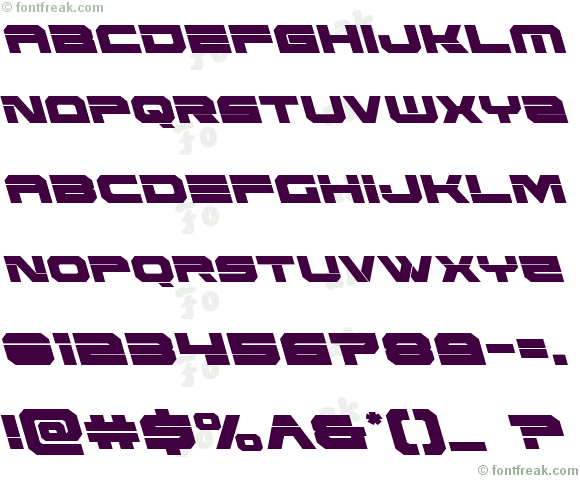
Eridanus Condensed Leftalic
About Eridanus Condensed Leftalic
Eridanus Condensed Leftalic by Daniel Zadorozny is a striking display font that embodies a unique blend of modernity and futuristic flair. This condensed typeface features a semi-bold stroke weight with a noticeable contrast that gives it a dynamic presence. The italic styling adds a sense of motion, making it ideal for projects where you want to convey energy and innovation. The sharp, angular forms of the letters are complemented by a streamlined spacing that enhances readability while maintaining a distinct aesthetic. Its design is reminiscent of 3D laser graphics, making it perfect for projects that require a cutting-edge visual approach.
This font excels in various use cases, particularly in the realms of technology and entertainment. It is an excellent choice for movie posters, where its bold and adventurous style can capture the excitement of a new release. Additionally, it suits branding for tech startups, providing a modern edge that can attract a youthful audience. Restaurant menus, especially those looking for a contemporary vibe, can benefit from the font's sleek appearance. Furthermore, Eridanus Condensed Leftalic is perfect for graphic designers creating eye-catching advertisements or promotional materials that aim to stand out in a crowded marketplace.
Targeting graphic designers, small business owners, and content creators, this font offers an opportunity to elevate visual communication with its unique design. The Eridanus Condensed Leftalic font free download makes it accessible for anyone looking to infuse their projects with a distinct character without financial constraints. In a world where font choices can define a brand's identity, this typeface stands out for its versatility and boldness, making it a valuable addition to any designer's toolkit.